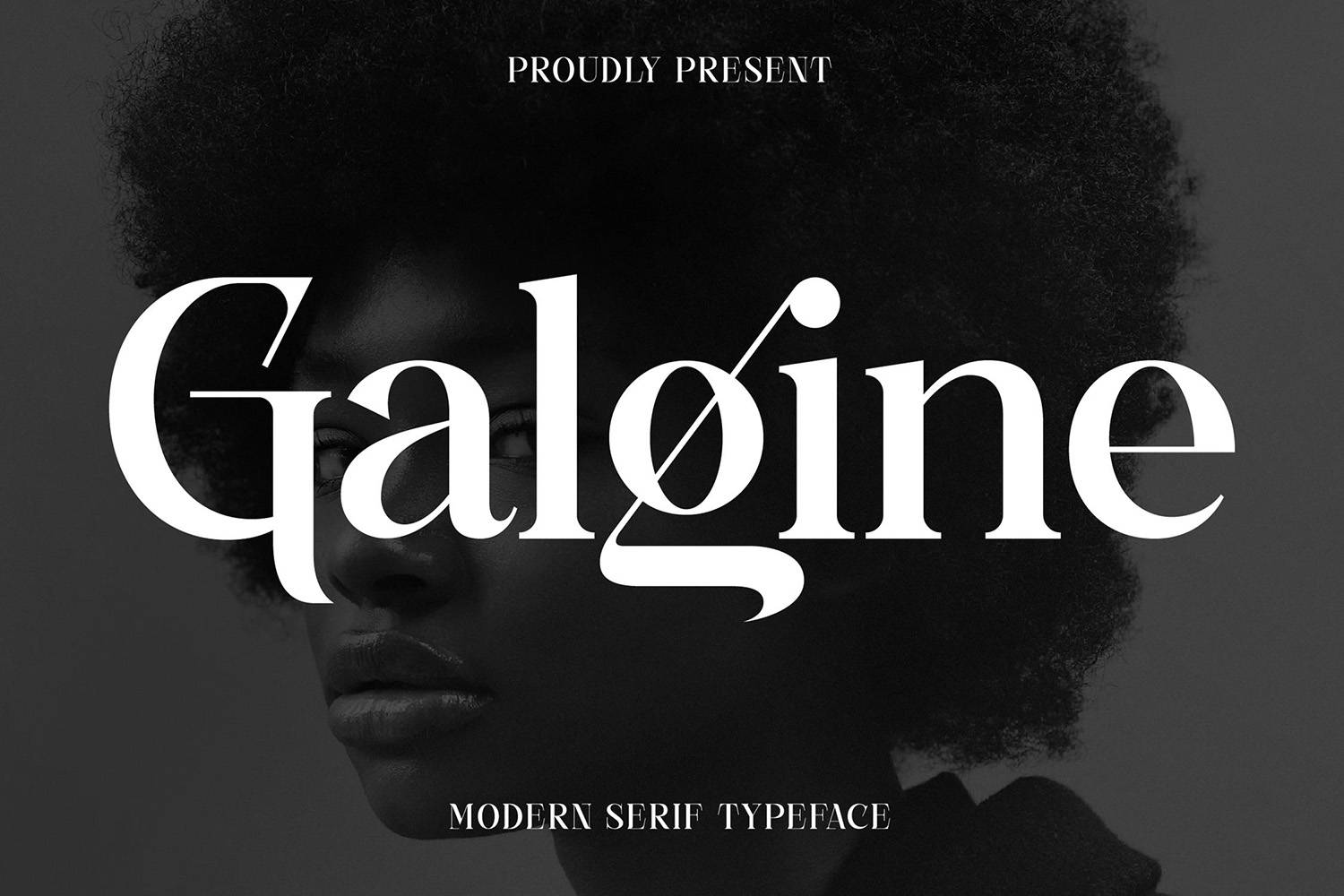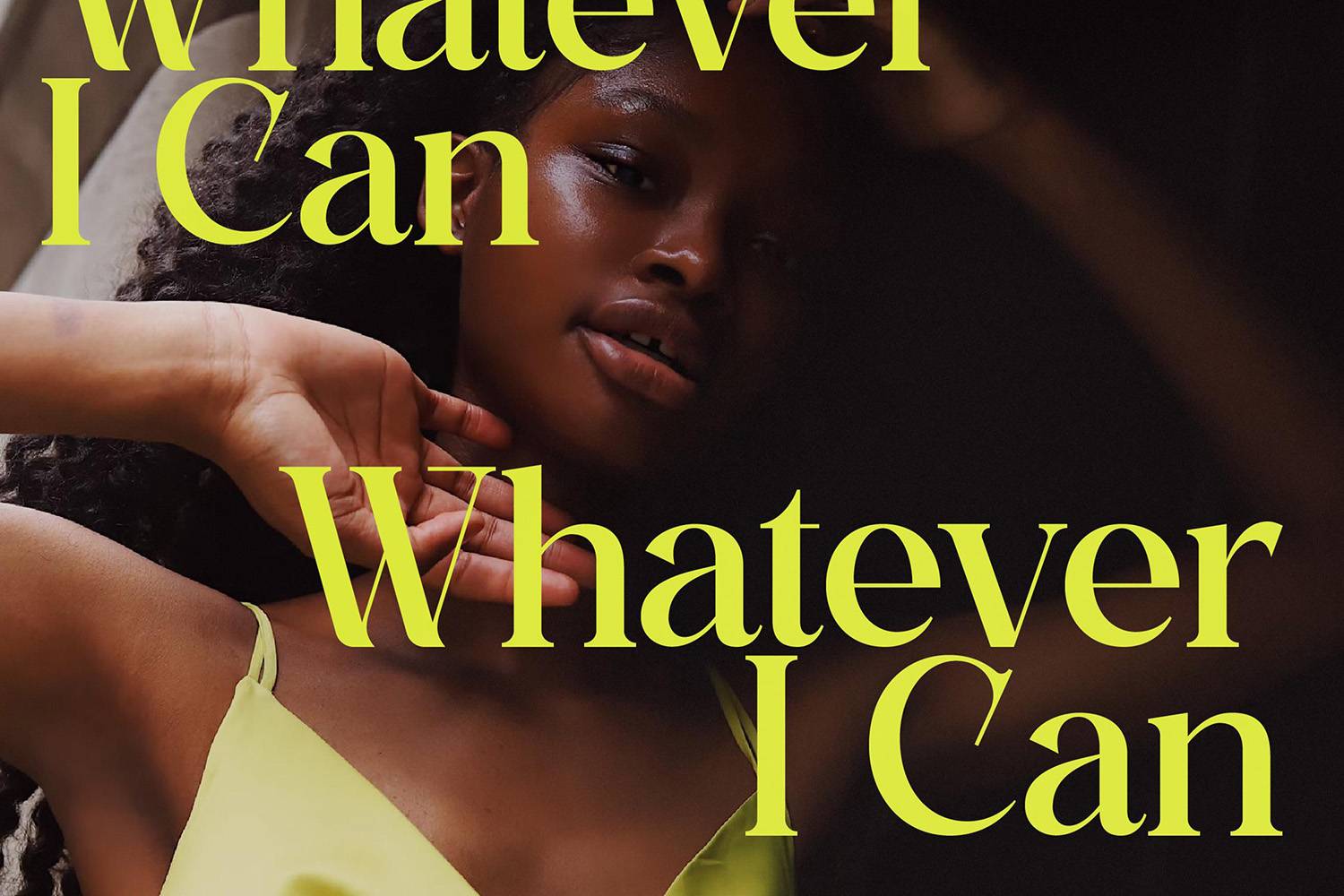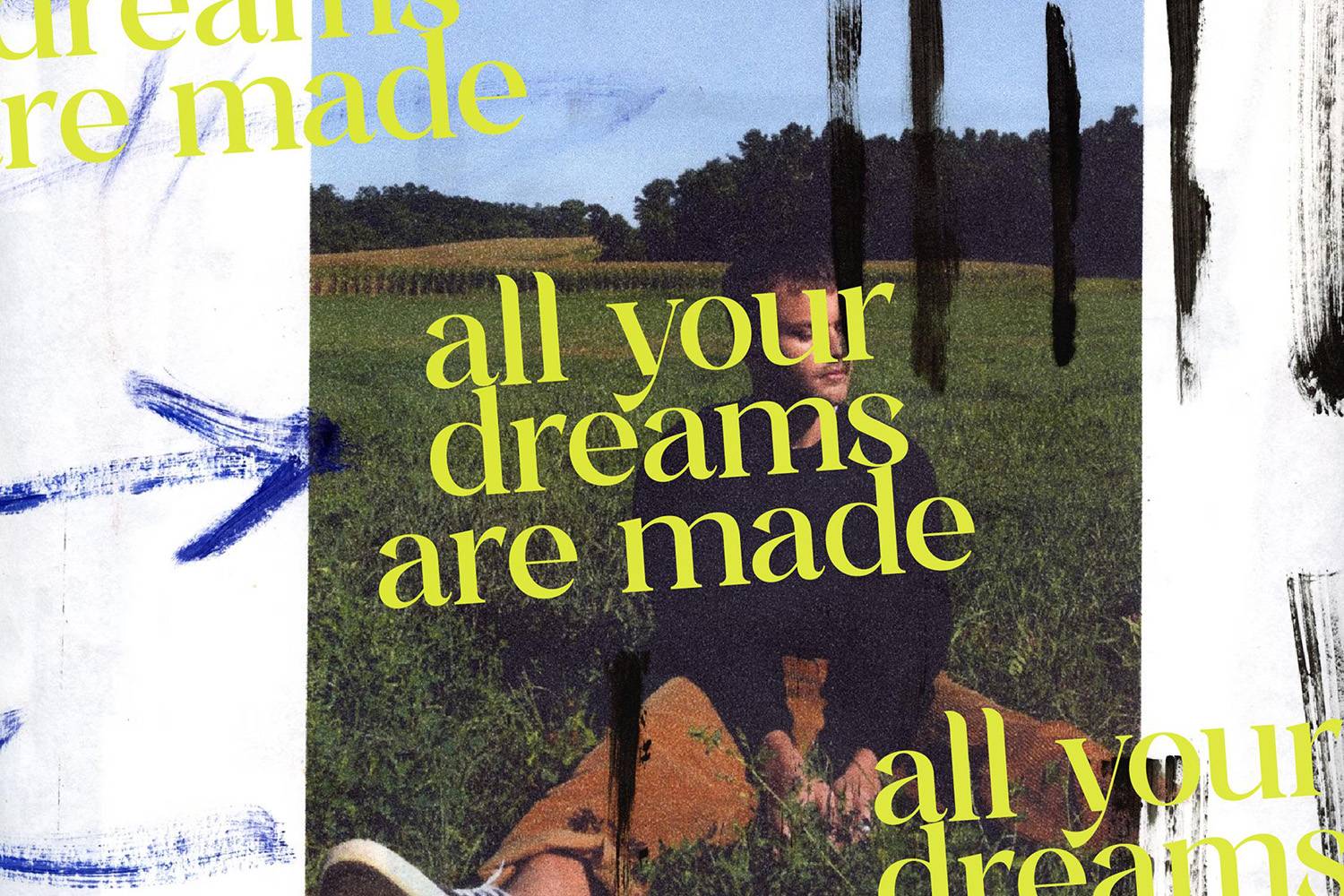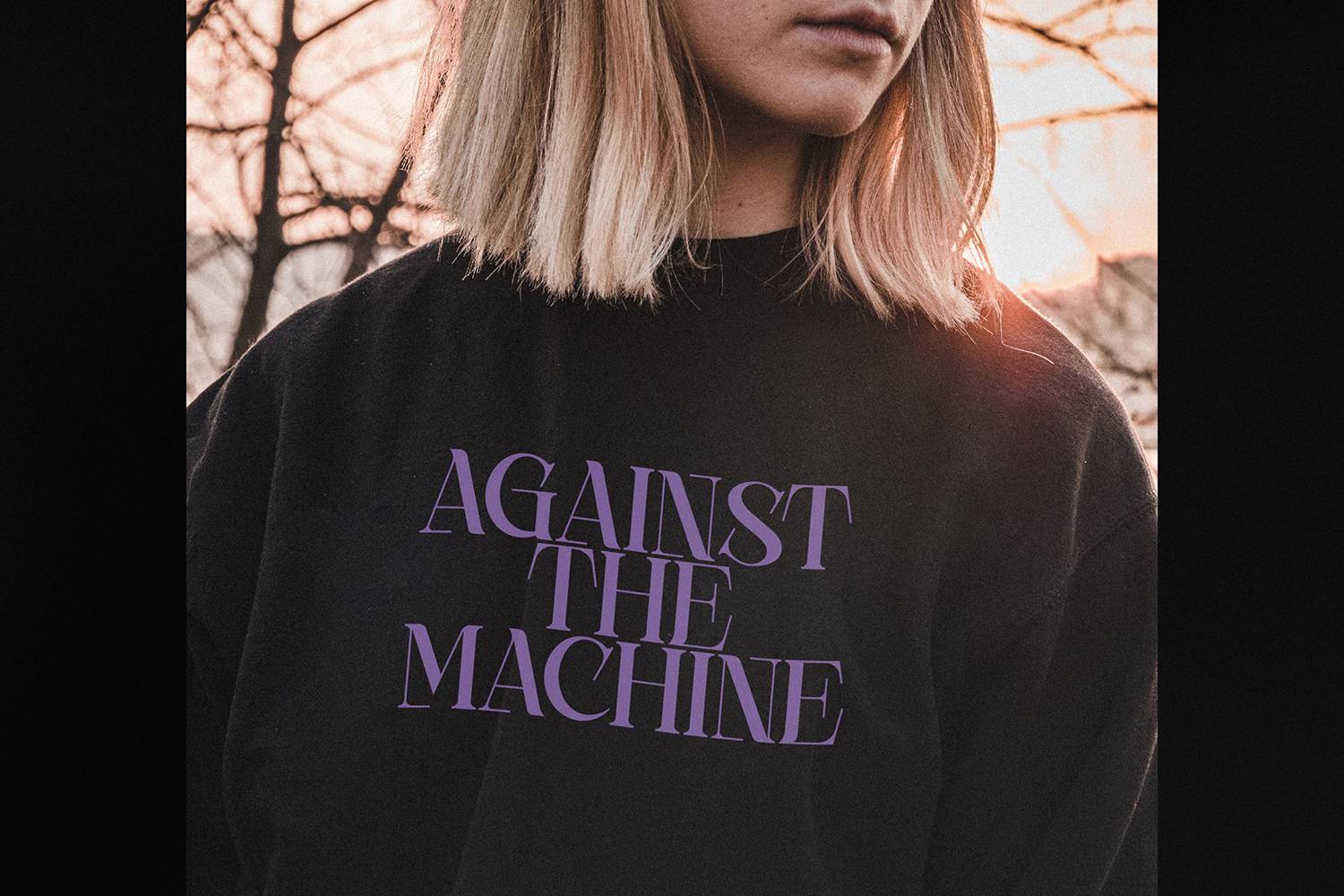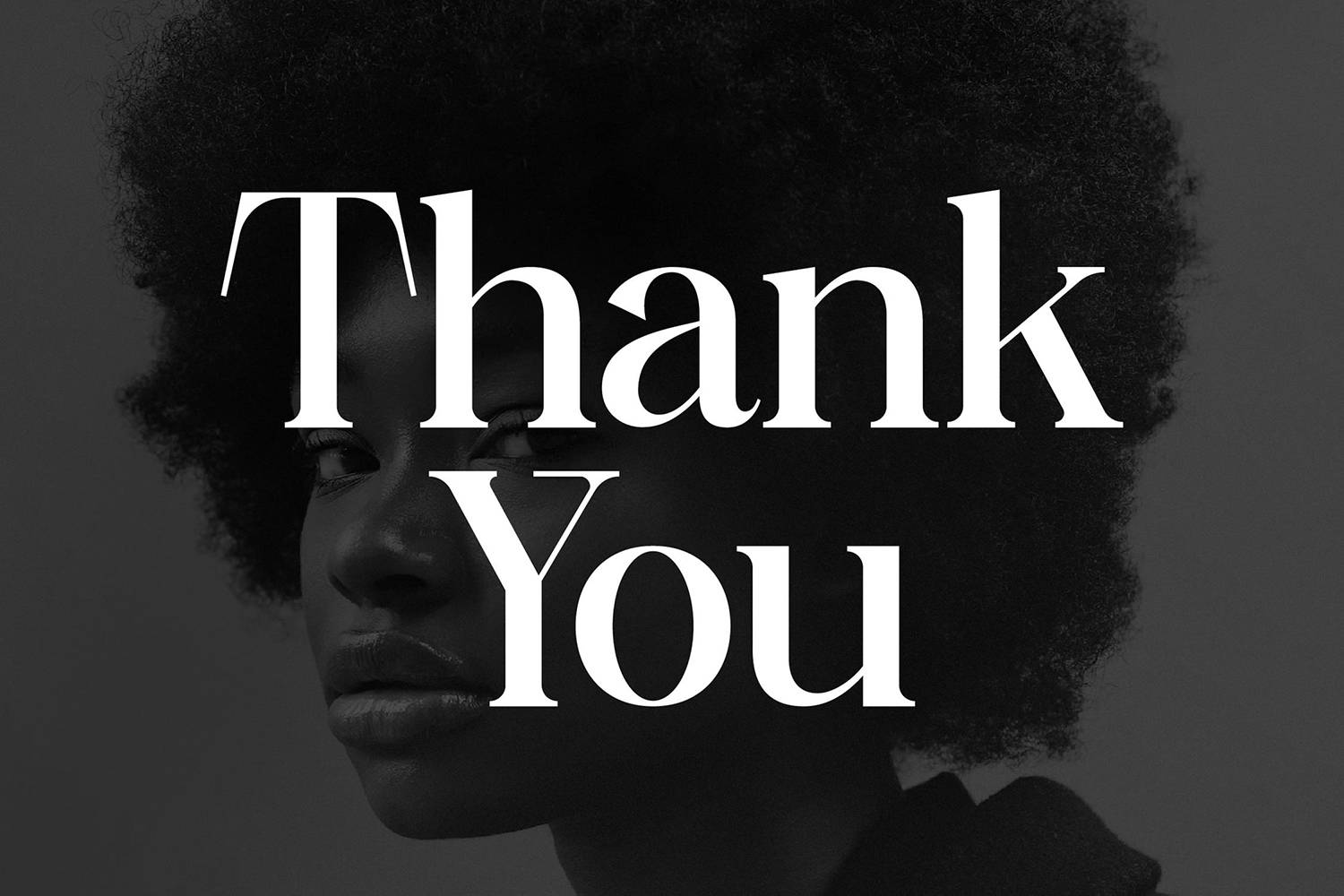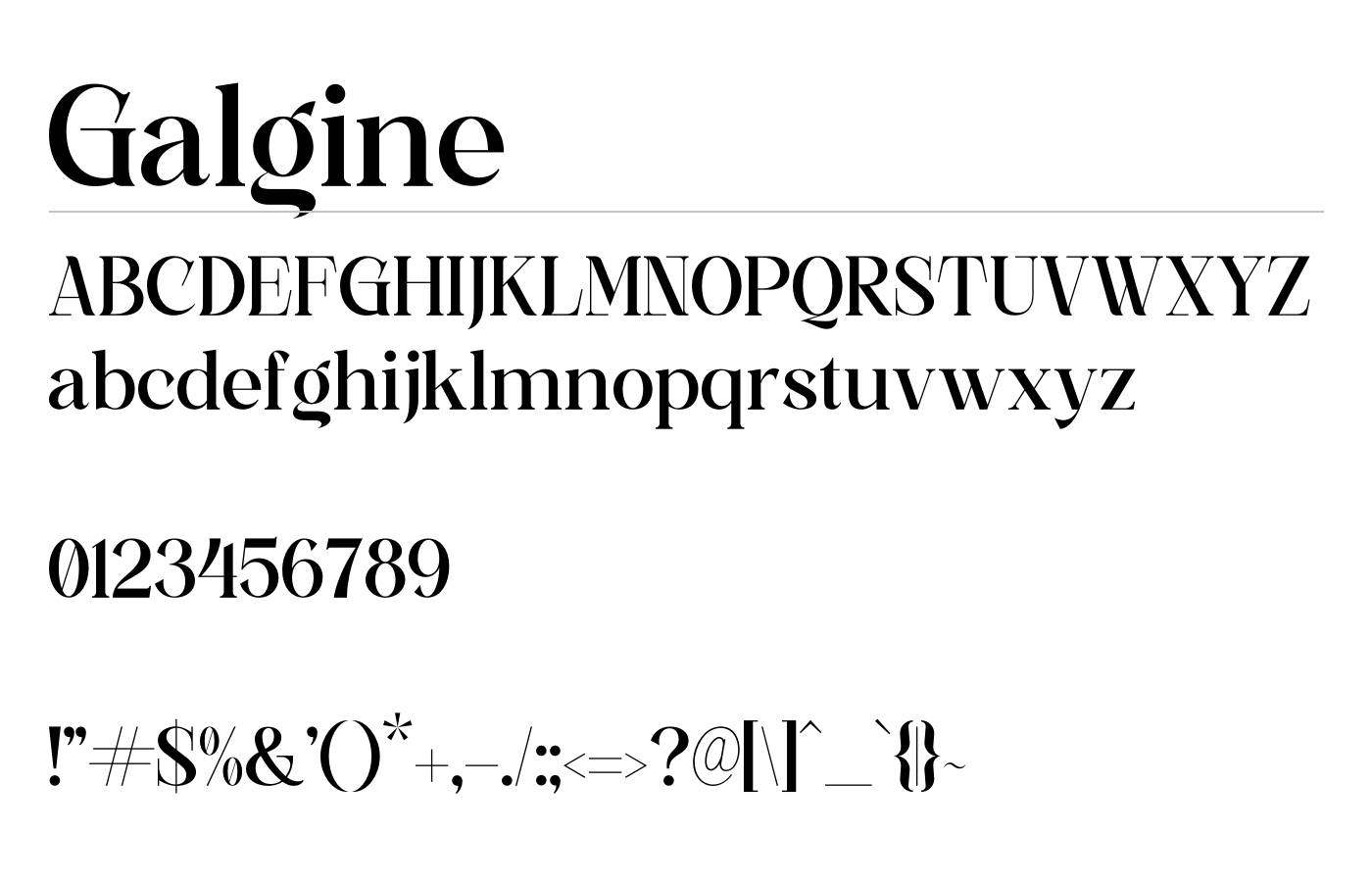
Galgine is an elegant serif font with a refined, modern feel featuring high contrast between thick and thin strokes, and sharp, bracketed serifs. Its sophisticated letterforms and stylish details make it perfect for luxury branding, editorial headlines, and high-end packaging where a touch of classic elegance is desired. This font combines readability with a distinctive, upscale personality that enhances any design needing a polished, professional look.
Galgine Font
About Galgine Font